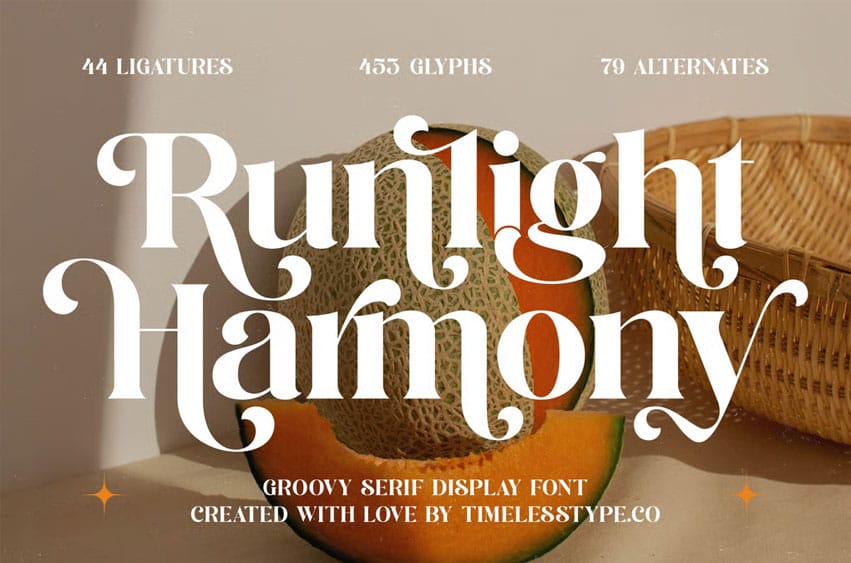
Runlight Harmony Font is a groovy serif display font crafted with expressive curves, bold character shapes, and a warm, nostalgic touch. Perfect for modern branding that needs a hint of retro charm, this typeface shines in editorial layouts, packaging, logo design, posters, invitations, and lifestyle-themed visuals.
With 44 ligatures, 79 stylistic alternates, and a total of 455 glyphs, you’ll have endless creative freedom to build custom wordmarks and elegant typography compositions. Every curve is drawn with intention, giving your designs a handcrafted, luxurious, and unforgettable look.